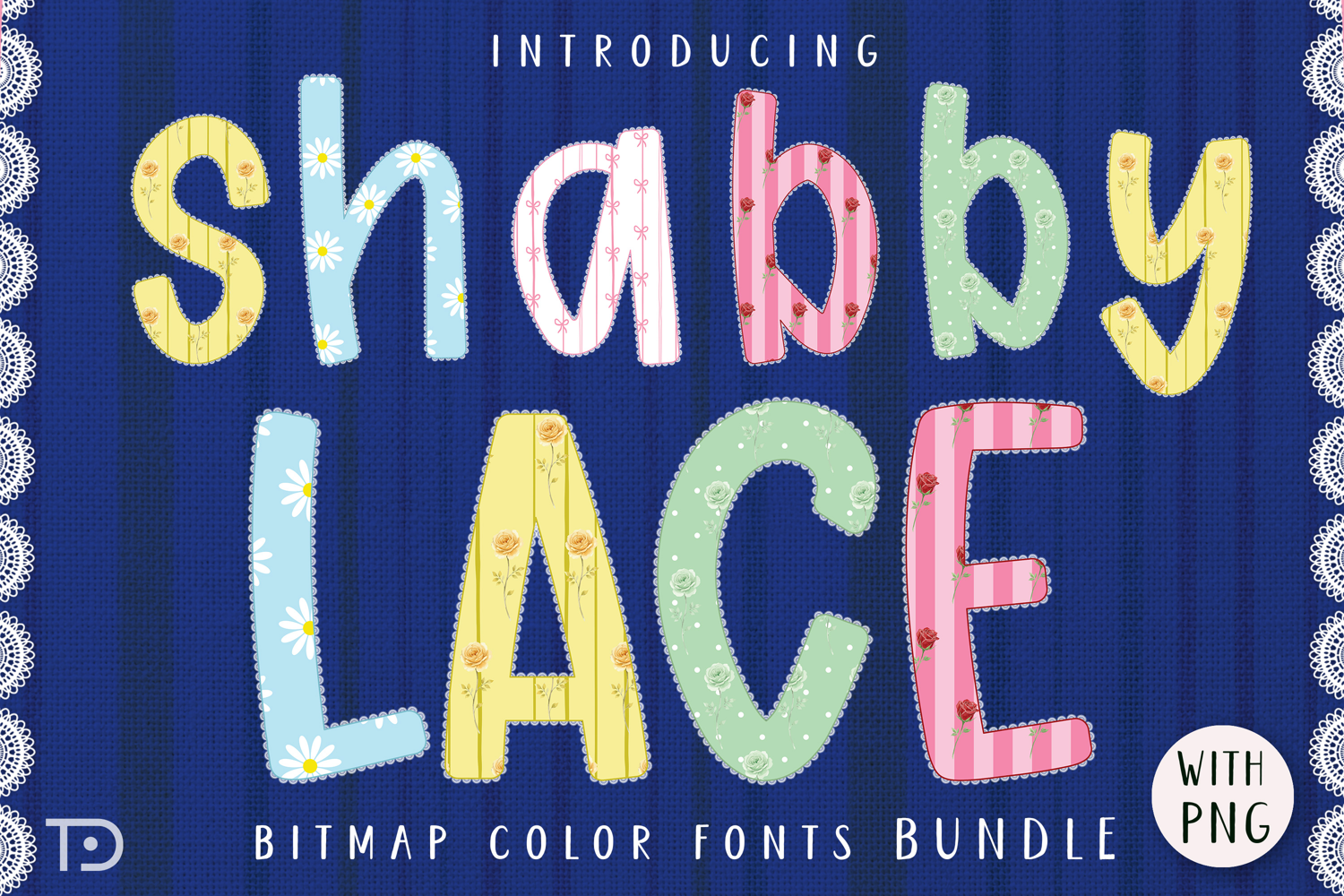
Shabby Chic Lace 5 Font Bundles is a Shabby Chic Lace design Bitmap Color font.
It will look fantastic on all your project designs, including t-shirt designs, mug designs, digital designs, crafts, cards, and any projects!